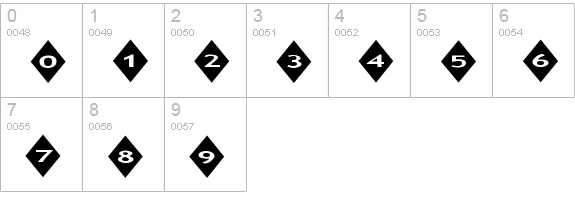
Introducing AlphaShapes Diamonds font - a dazzling and geometrically exquisite typeface that exudes elegance and sophistication. Each letter is intricately crafted with diamond-shaped elements, creating a striking and modern look. The sharp edges and clean lines of this font make it perfect for adding a touch of luxury to any design project. Best of all, AlphaShapes Diamonds font is available for free download at FontsMarket.com. This means you can easily enhance your creations with this unique and eye-catching typeface without any cost. Whether you're working on a logo, branding, invitations, or any other design, AlphaShapes Diamonds font is sure to make a bold statement and leave a lasting impression. Upgrade your typography game with this stunning font today!